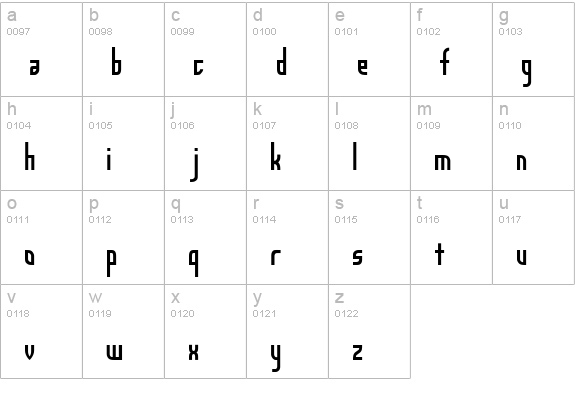
AngelaSans Font Details
AngelaSans is a modern and elegant font that exudes sophistication and versatility. With clean lines and a timeless appeal, this font is perfect for a wide range of design projects, from branding to editorial work. The sleek and stylish letterforms of AngelaSans make it a great choice for creating professional and polished designs. What sets AngelaSans apart is not only its aesthetic appeal but also its accessibility. This font is available for free download at FontsMarket.com, making it a convenient choice for designers looking to enhance their projects without breaking the bank. Whether you're working on a logo, website, or printed materials, AngelaSans offers a touch of class and refinement that will elevate your designs to the next level. Overall, AngelaSans is a versatile and sophisticated font that combines style with accessibility, making it a valuable addition to any designer's toolkit. Download it for free today at FontsMarket.com and see how this font can take your designs to new heights.